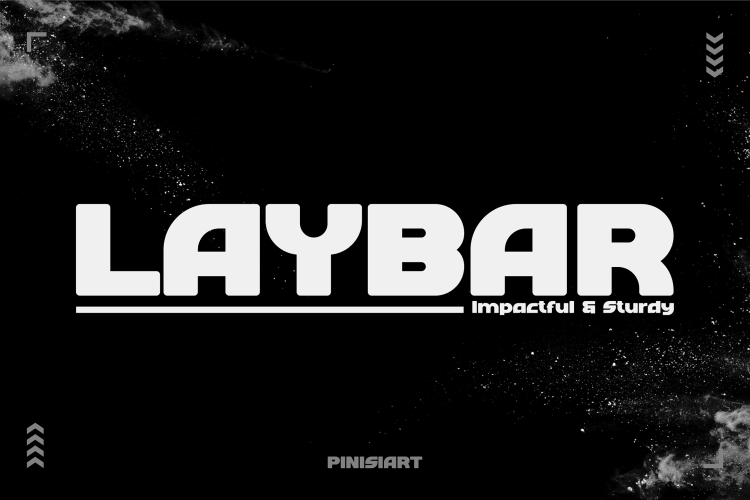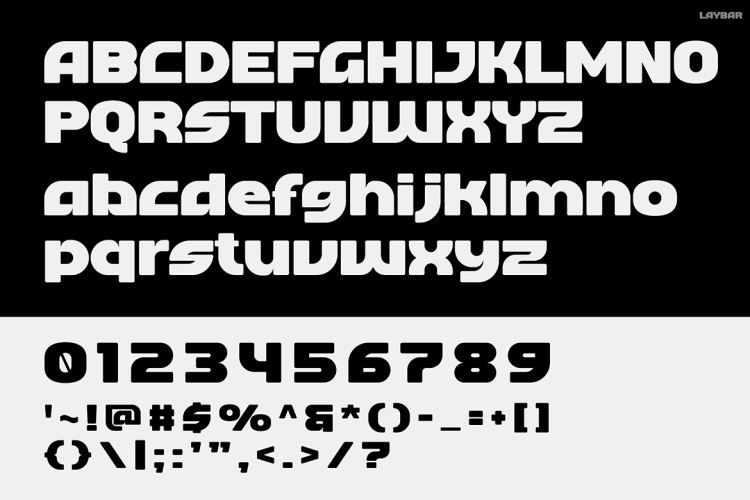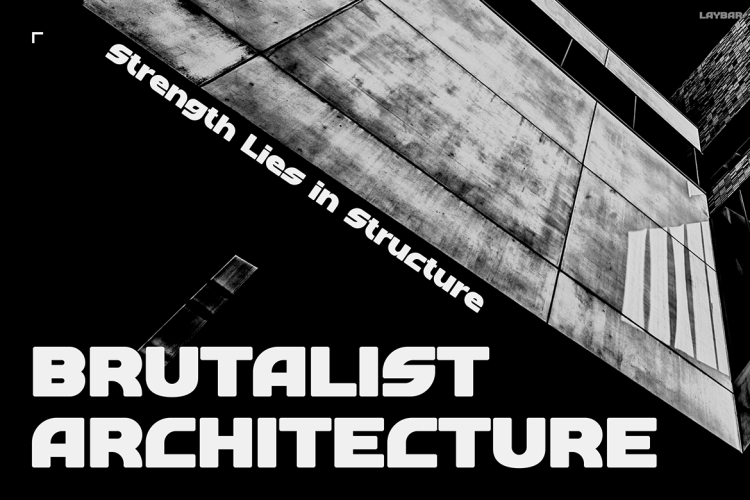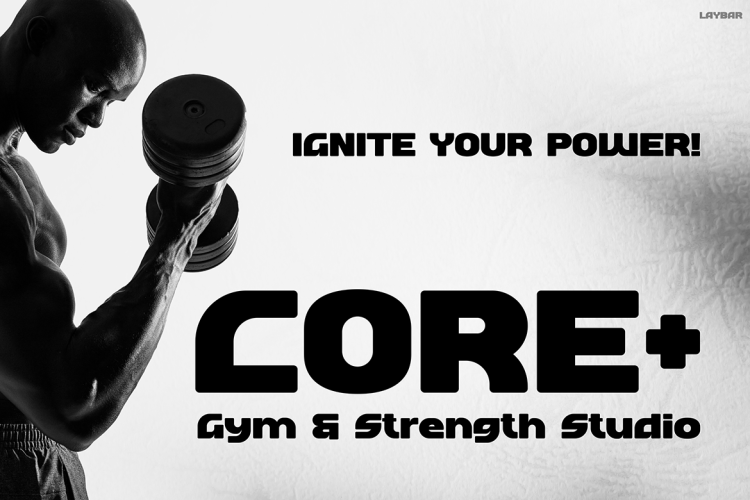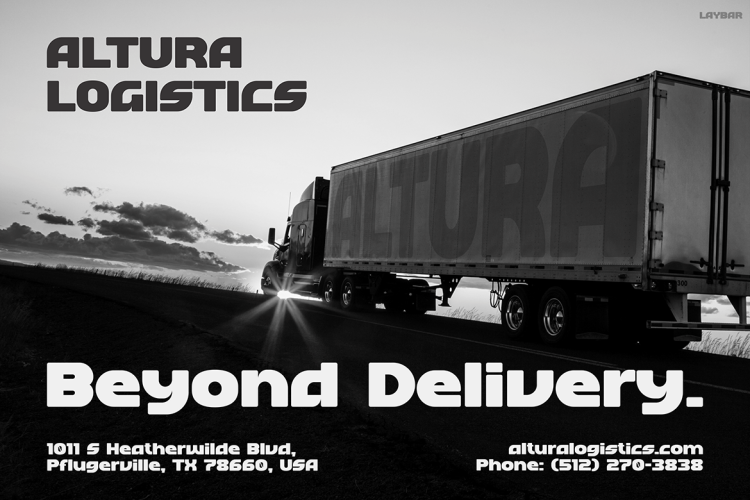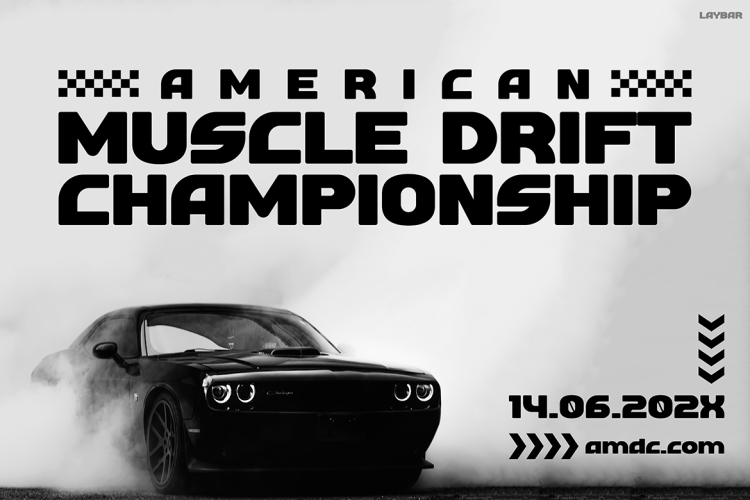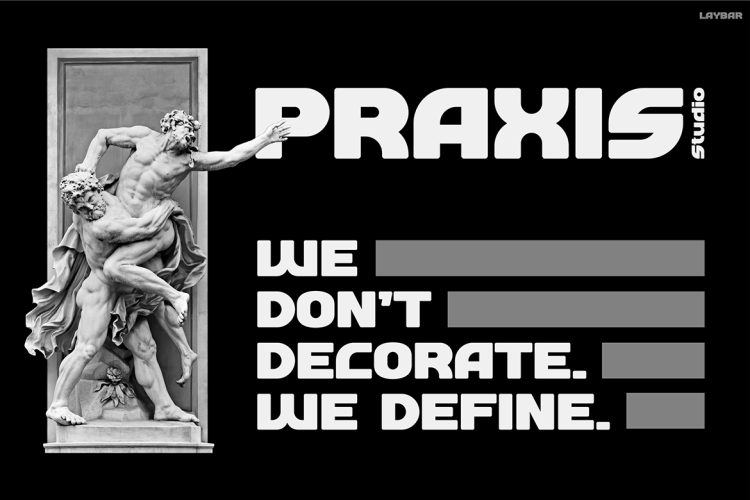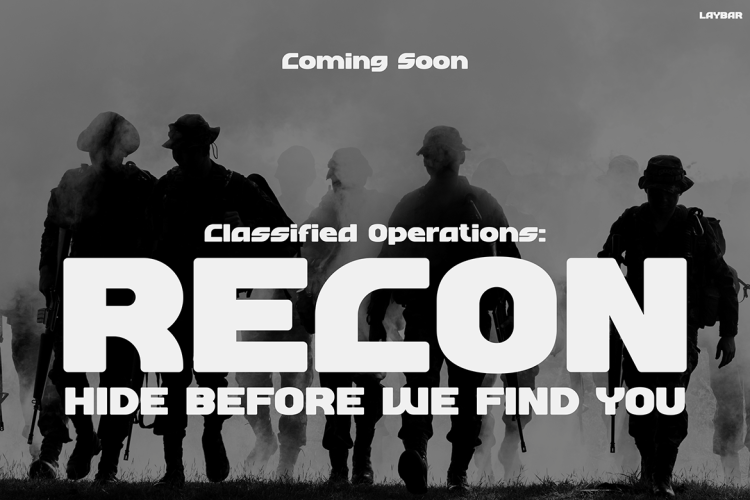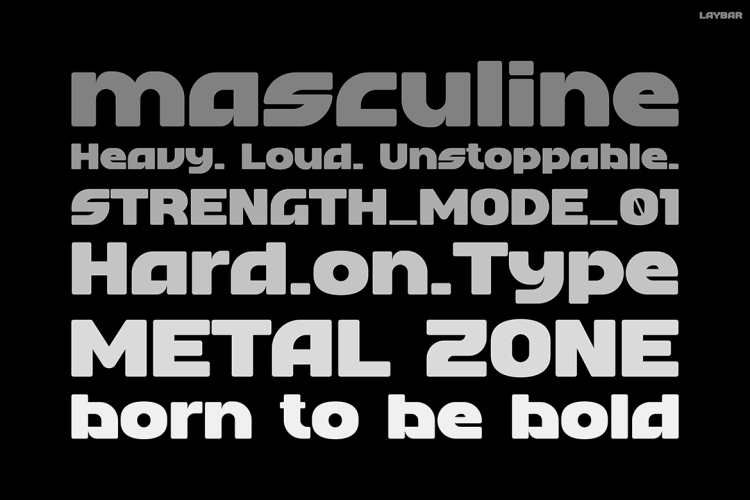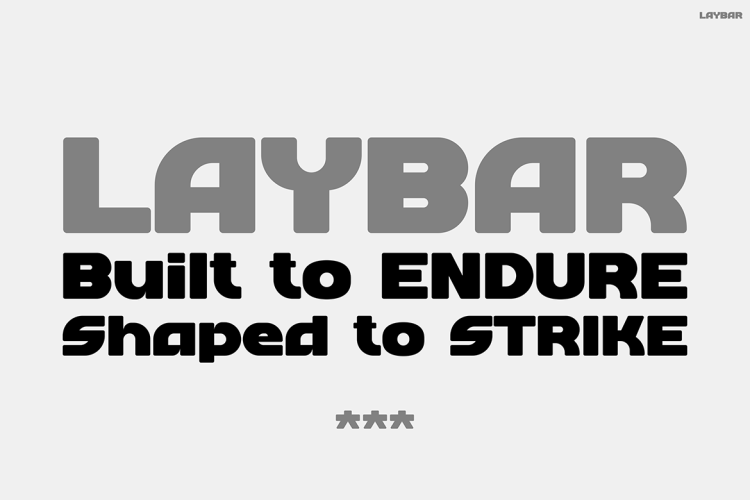
Instagram Font LAYBAR โ Bold, Industrial, and Built to Make a Statement
Instagram Font LAYBAR is a bold, industrial font designed to dominate attention from the very first glance. Its thick strokes, square shapes, and clean curves make it both powerful and visually satisfying. As a result, it brings an unmistakable presence to any design it touches.
What sets this font apart is its combination of brutalist strength and modern styling. Unlike many heavy fonts, LAYBAR avoids looking outdated. Instead, it feels fresh and sharpโthanks to its clean spacing and geometric rhythm. Even when used in compact layouts, it maintains excellent legibility and visual punch.
Moreover, the fontโs adaptability makes it suitable for various design themes. Whether youโre creating for print or digital, LAYBAR always performs. You can see its versatility in mockupsโfrom fitness branding and military posters to trucking ads and Instagram graphics.
Every character is crafted to feel stable, grounded, and confident. Additionally, subtle rounding in the corners prevents the font from feeling too harsh. In short, LAYBAR is all about balance: strong yet smooth, loud but clear.
Who Should Use This Font?
Instagram Font LAYBAR is ideal for:
Fitness studios, gym brands, and personal trainers who want bold, high-energy typography.
Racing events and automotive creators looking for speed, tension, and visual weight.
Tactical and logistics companies that need a reliable and masculine tone.
Instagram content creators and influencers who want bold type for story covers, carousels, or branded posts.
Fashion-forward, techwear, or brutalist design lovers who need a modern, heavy font with punch.
Not only does LAYBAR make your message stronger, but it also boosts your brandโs visual consistency. So whether youโre designing logos, posters, or digital assets, it helps you deliver a clear and impactful look.
Build Strong Visuals That Leave a Mark
If youโre tired of fonts that fade into the background, Instagram Font LAYBAR is your next go-to typeface. With its confident structure and modern brutalist charm, it helps your brand speak louderโwithout saying a word. Try LAYBAR today, and create designs that stand tall, speak clearly, and hit hard.